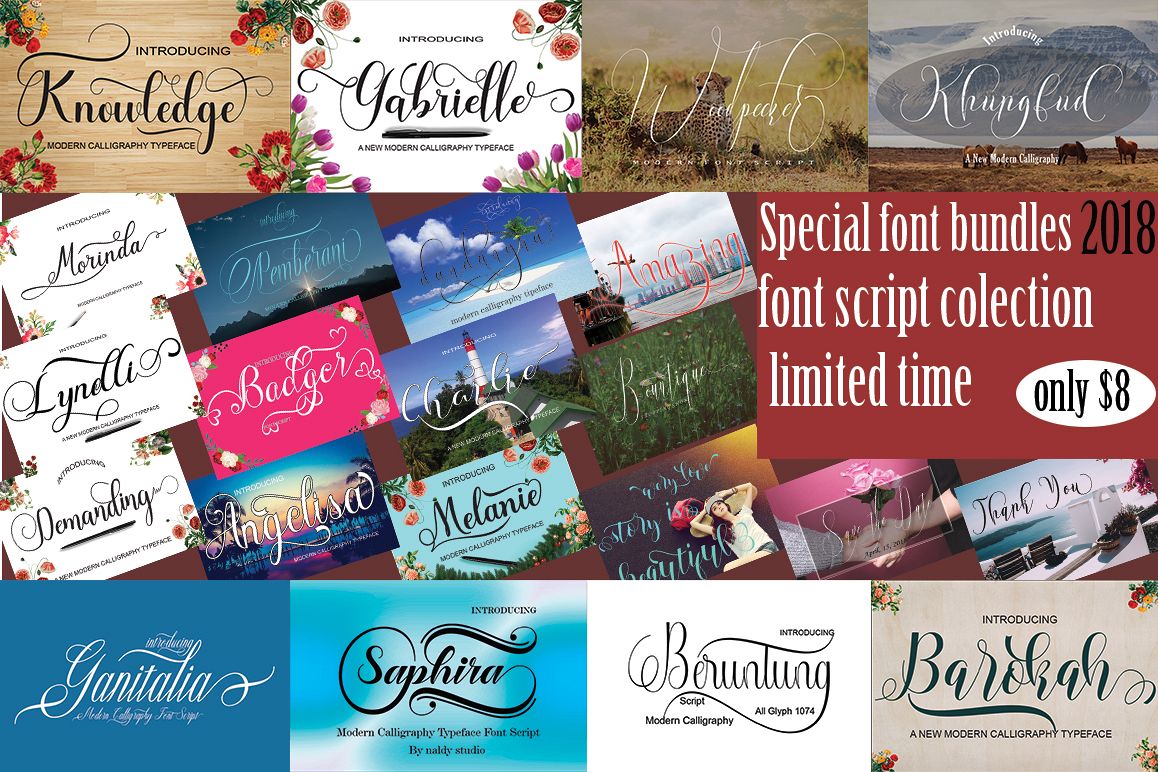
SPECIAL FONTS BUNDLES
This package contains 15 Font Scripts. Includes some best-selling fonts.Knowledge Script, Melanie Script, Badger Script, Charlie Script, Gabrielle Script, Saphira Dll Script, with hundreds of glyphs, including alternates, ligatures, swashes, contextual alternatives and international language support. It can be accessed by using OpenType smart programs like Adobe Illustrator, Adobe InDesign, CorelDraw X6-X7, Microsoft Word.